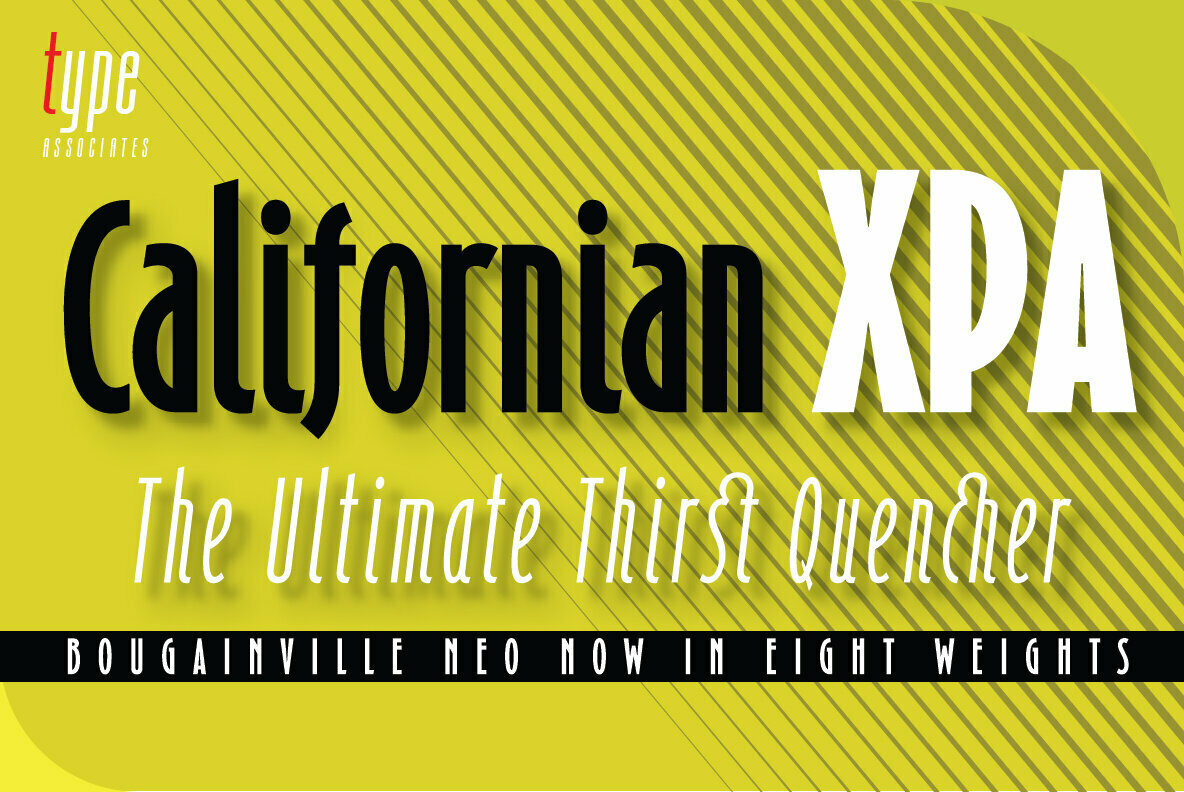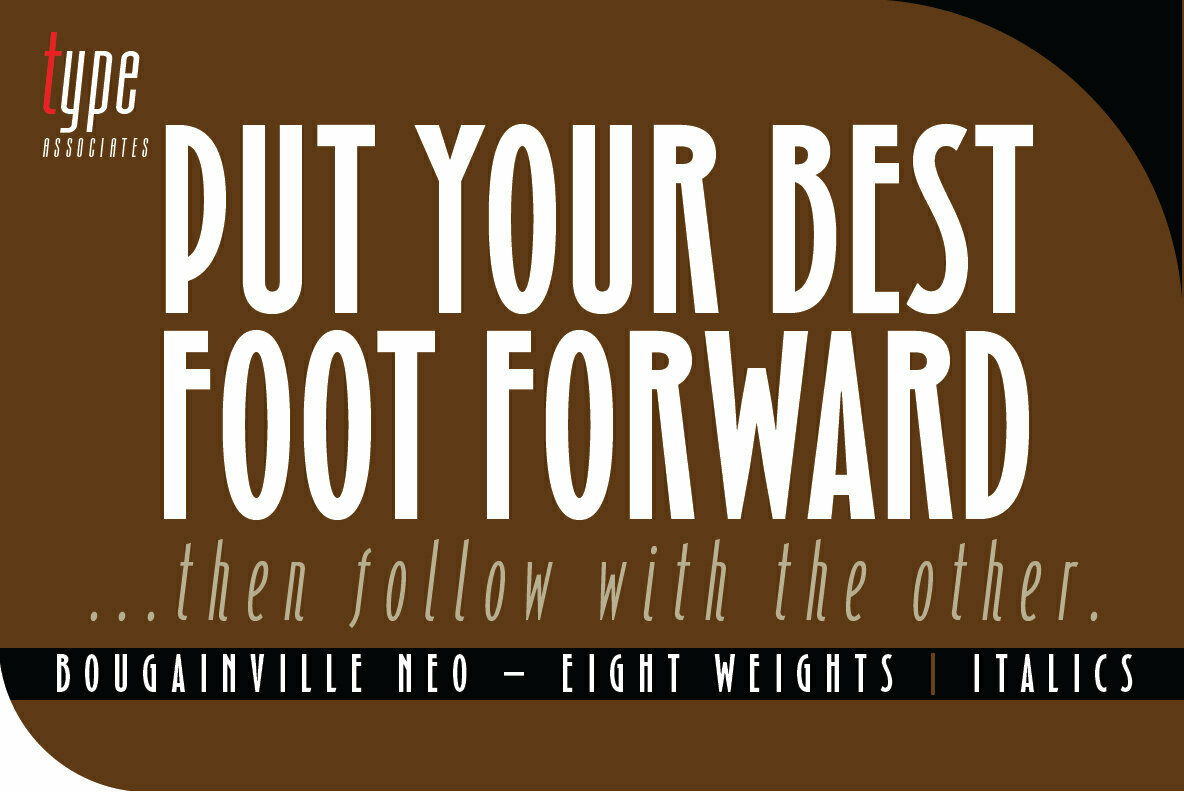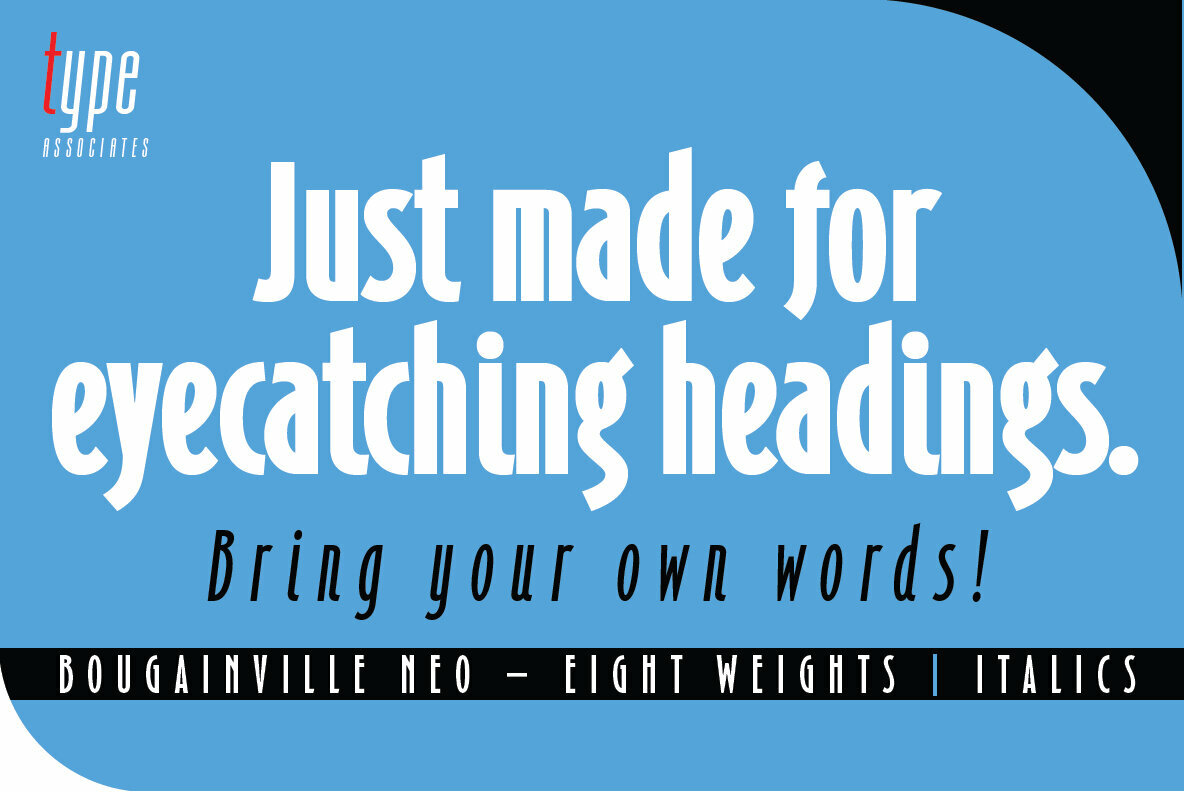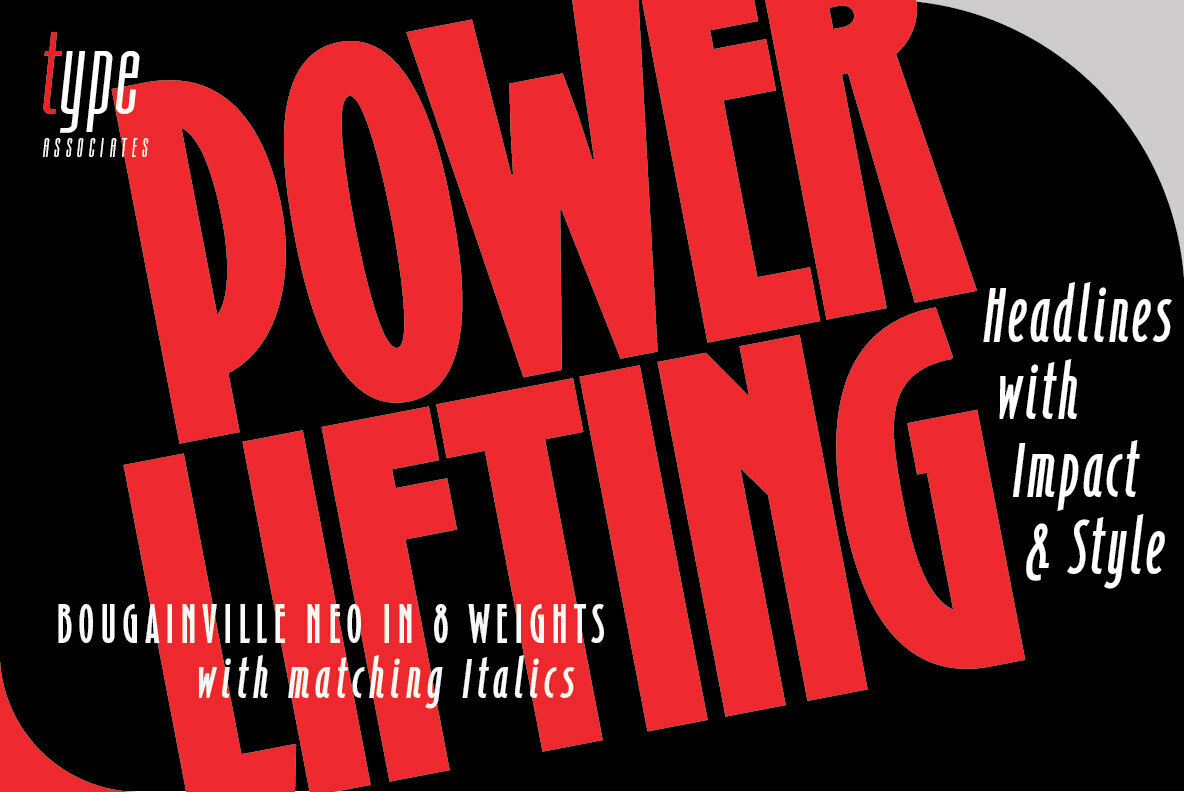
Bougainville Neo Font
Bougainville was originally released in 2003 as a four font family without italics. Due to its popularity the family was extended to eight weights and italics added making a total of 16 in the family. The original typeface family was named in honor of the renowned eighteen-century French mathematician and explorer Louis-Antoine de Bougainville to whom we owe the naming of South Sea Islands and colorful tropical flora he discovered along his journey. Bougainville Neo makes for effective headings at any size and is equally readable at semi-display sizes.